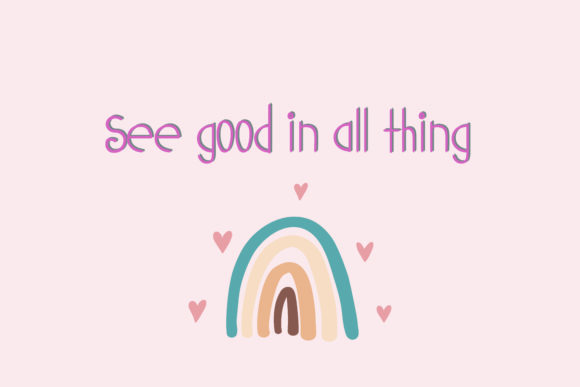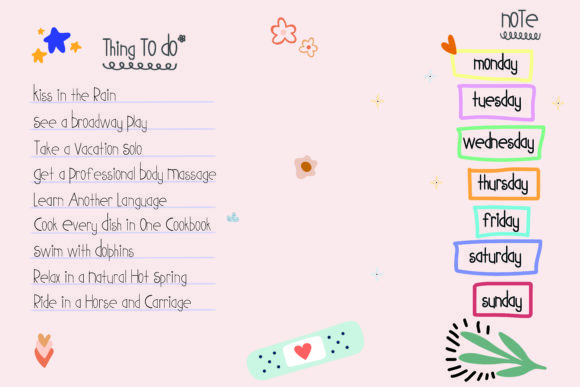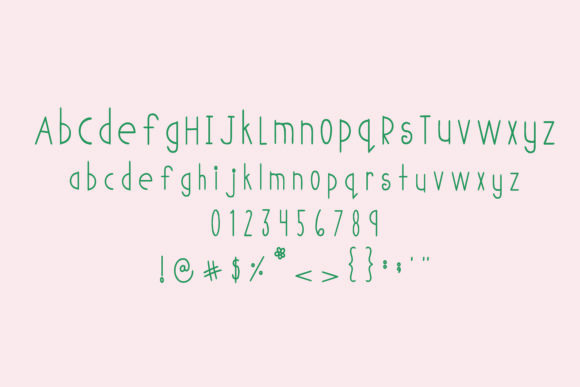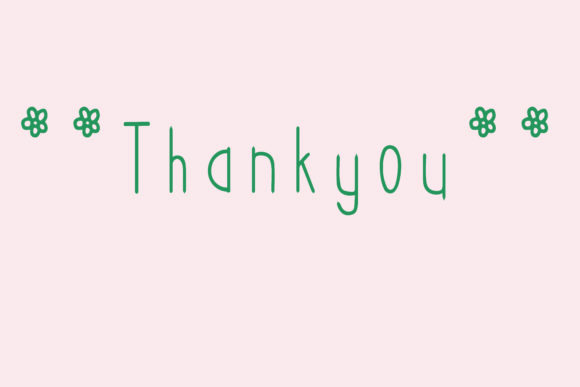
Ixora Font
About Ixora Font
Ixora is a cute handwritten kid font perfectly suited for your next project! Try this lovely new font for all you design needs.